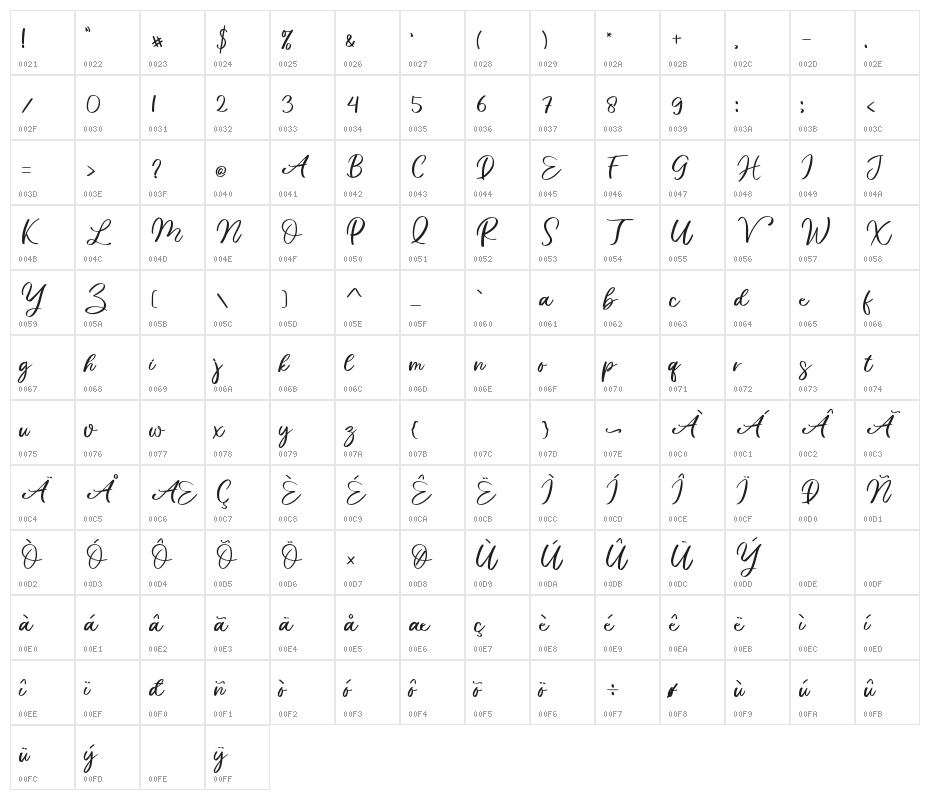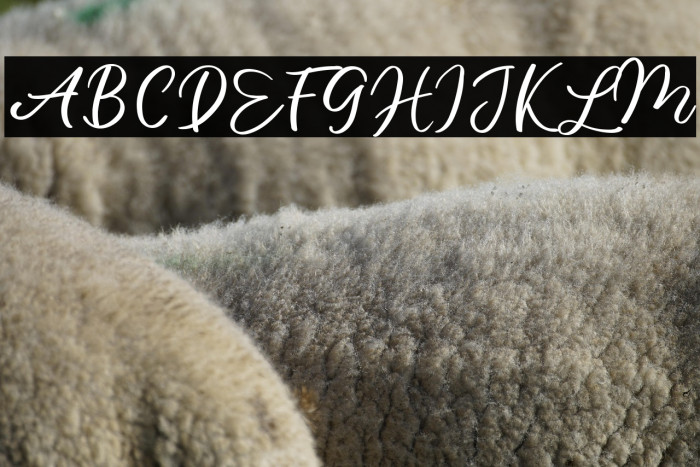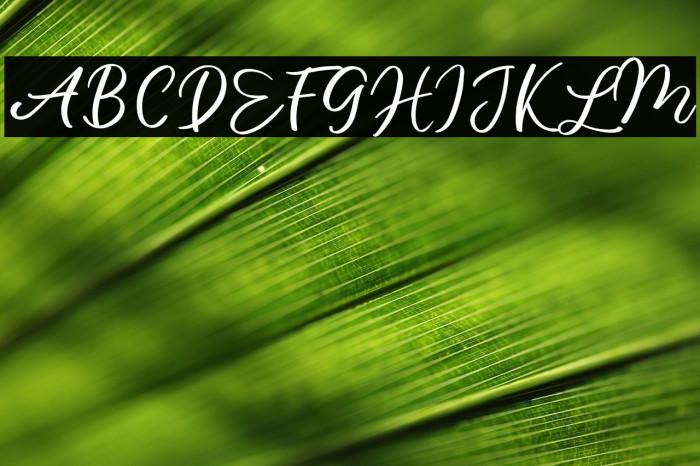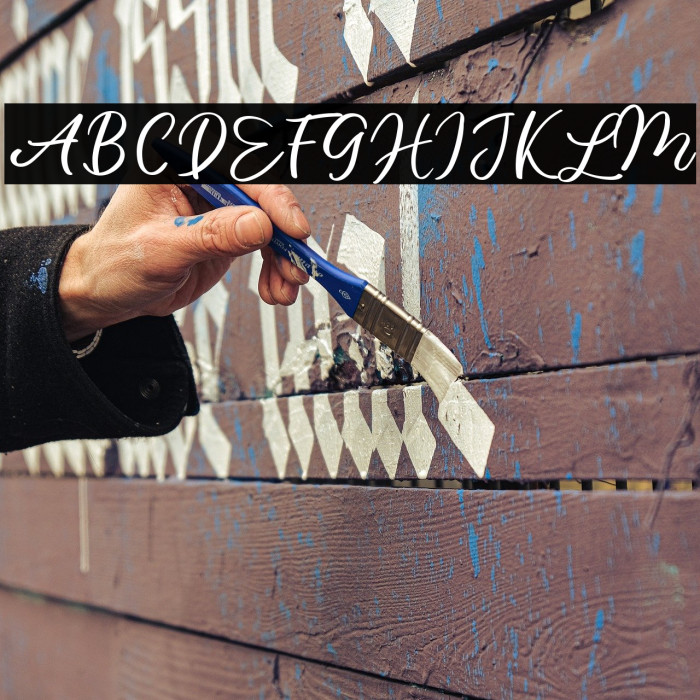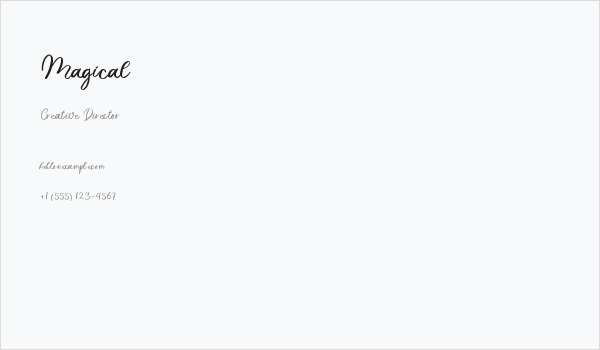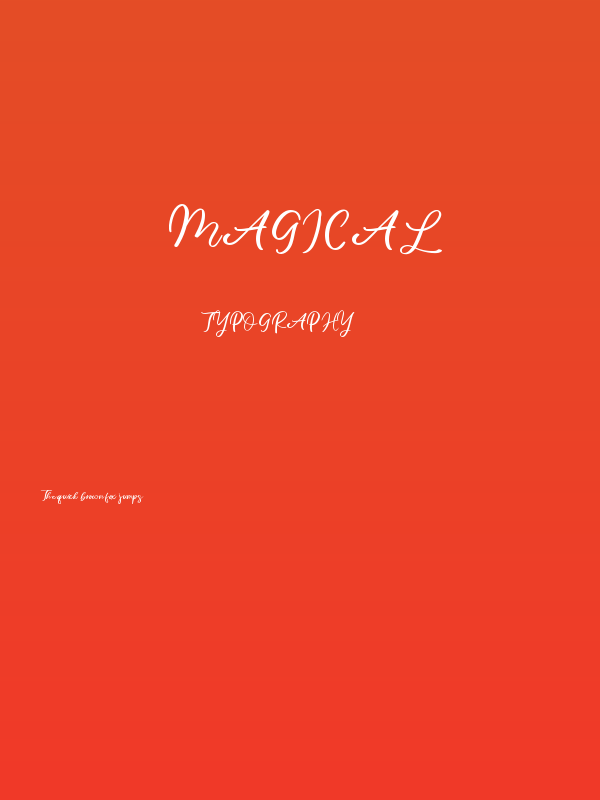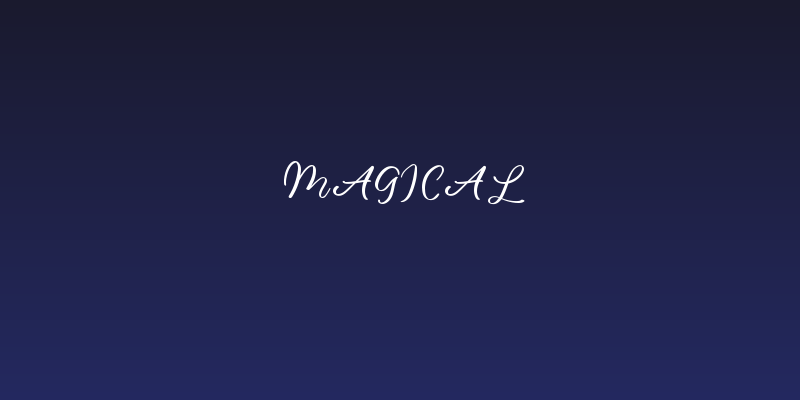
Magical Font
Magical Description
This font exudes elegance and sophistication with its flowing, cursive style. The characters are interconnected, creating a seamless and fluid appearance that is both graceful and dynamic. The uppercase letters are slightly more ornate, with flourishes that add a touch of flair, while the lowercase letters maintain a consistent rhythm and balance. The numerals are clear and legible, complementing the overall aesthetic. Special characters are thoughtfully designed to match the script's fluidity, ensuring a cohesive look across all text elements. This font is perfect for projects that require a personal, handwritten touch, such as invitations, greeting cards, and branding materials.
| Overall Style | Elegant, Handwritten |
| Use Case | Headlines, Invitations, Branding |
| Proposed Projects | Ideal for wedding invitations, greeting cards, personal branding, and elegant packaging designs. |